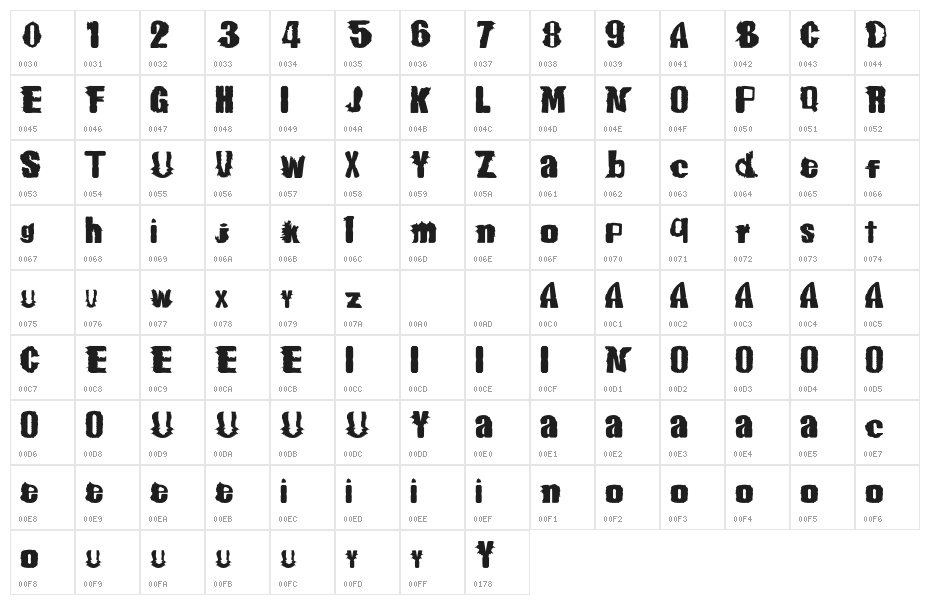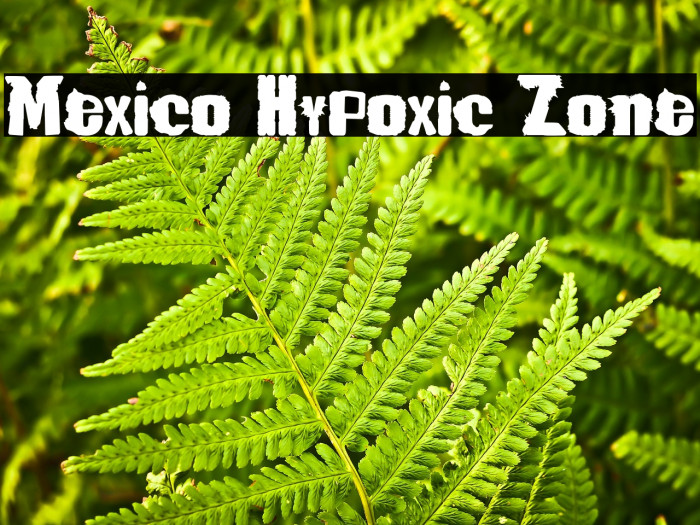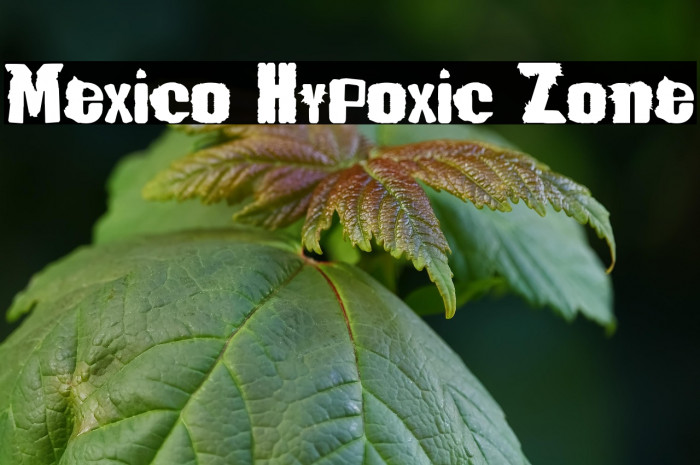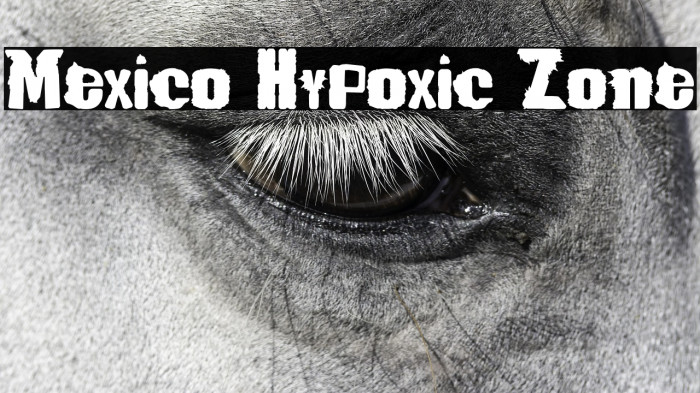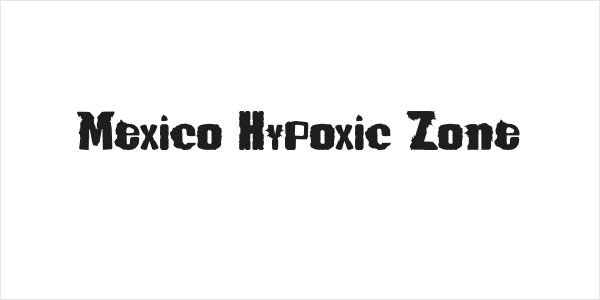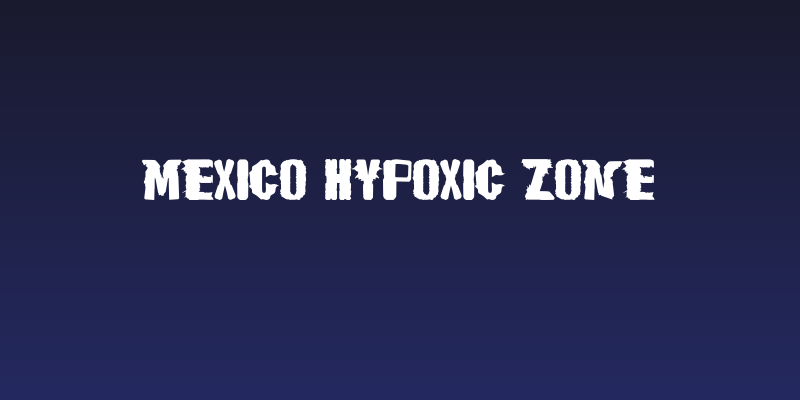
Mexico Hypoxic Zone Font
Mexico Hypoxic Zone Description
This font features a bold and dramatic design with a distressed, jagged appearance. The characters are heavily stylized, with rough edges and uneven strokes that give them a dynamic and chaotic feel. The uppercase and lowercase letters maintain a consistent theme, with each character appearing as if it has been torn or eroded, creating a sense of movement and energy. The numbers follow the same aesthetic, ensuring a cohesive look across all elements. This font is highly decorative, making it suitable for projects that require a strong visual impact.
| Proposed Projects | Ideal for horror-themed posters, edgy album covers, or any project needing a bold, distressed look. |